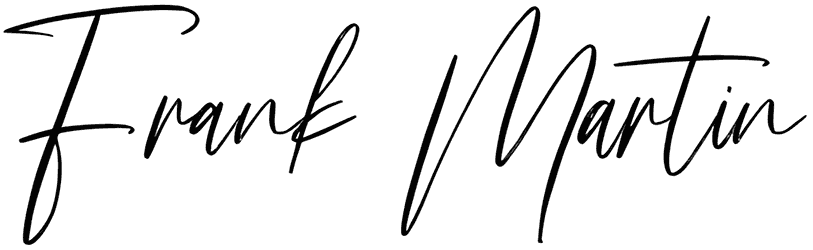
Frank Martin Font
Frank Martin is a lovely script font that looks insanely perfect for a wide set of creative ideas, ranging from social media posts, product packaging, stickers, and billboards, to video game brochures.